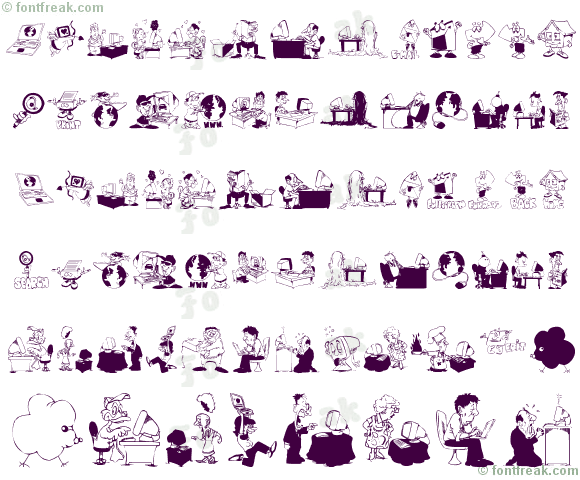
Webmasters
Webmasters by Manfred Klein is a charming display font that captures the essence of digital creativity. This font falls into the category of decorative fonts, characterized by its playful and whimsical design. The visual style of Webmasters features a consistent stroke weight that adds a light-hearted touch, while the unique decorative elements evoke a sense of nostalgia for early internet culture. The spacing is well-balanced, ensuring readability while maintaining an engaging aesthetic that draws the eye.
This font is ideal for a variety of specific use cases. It can be effectively used for website headers, bringing a fun and approachable vibe to online platforms. Additionally, Webmasters is perfect for tech-themed posters, where its quirky elements can capture the audience's attention. Small business owners can utilize this font for promotional materials, providing a distinctive flair that sets their branding apart. Content creators will find it suitable for social media graphics, appealing to a younger, tech-savvy audience. Finally, it works well for educational materials aimed at teaching digital literacy, as its playful design can make learning more enjoyable.
The target audience for Webmasters includes graphic designers looking to add a unique touch to their projects, small business owners wanting to stand out in a crowded market, and content creators aiming to engage their followers with eye-catching visuals.
What makes the Webmasters font truly stand out is its ability to blend a sense of nostalgia with modern aesthetics. It embodies the playful spirit of the early internet era while remaining relevant in today's design landscape. With a Webmasters font free download available, this delightful typeface is an excellent choice for anyone looking to infuse creativity and fun into their projects.